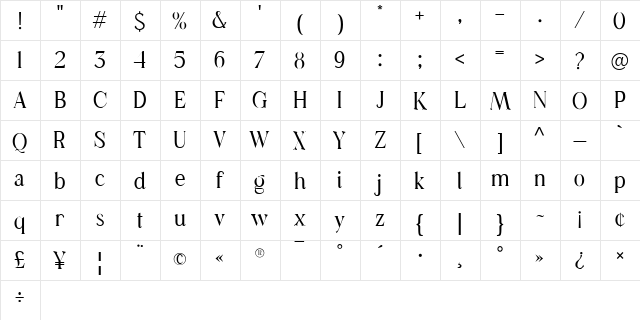
Casanova Serif Display Free Regular
Design Context for Casanova Serif Display Free Typeface
Casanova Serif Display Free brings ornamental detail and strong personality to headlines and identities, where visual impact matters more than quiet functionality.
Font Pairing: Pair with a clean neutral sans-serif for body copy to let Casanova Serif Display Free's character lead without overwhelming the composition.
Pro Tip: Use Casanova Serif Display Free exclusively at display sizes — it was designed to be seen, not read at length. Let a neutral companion handle body copy.